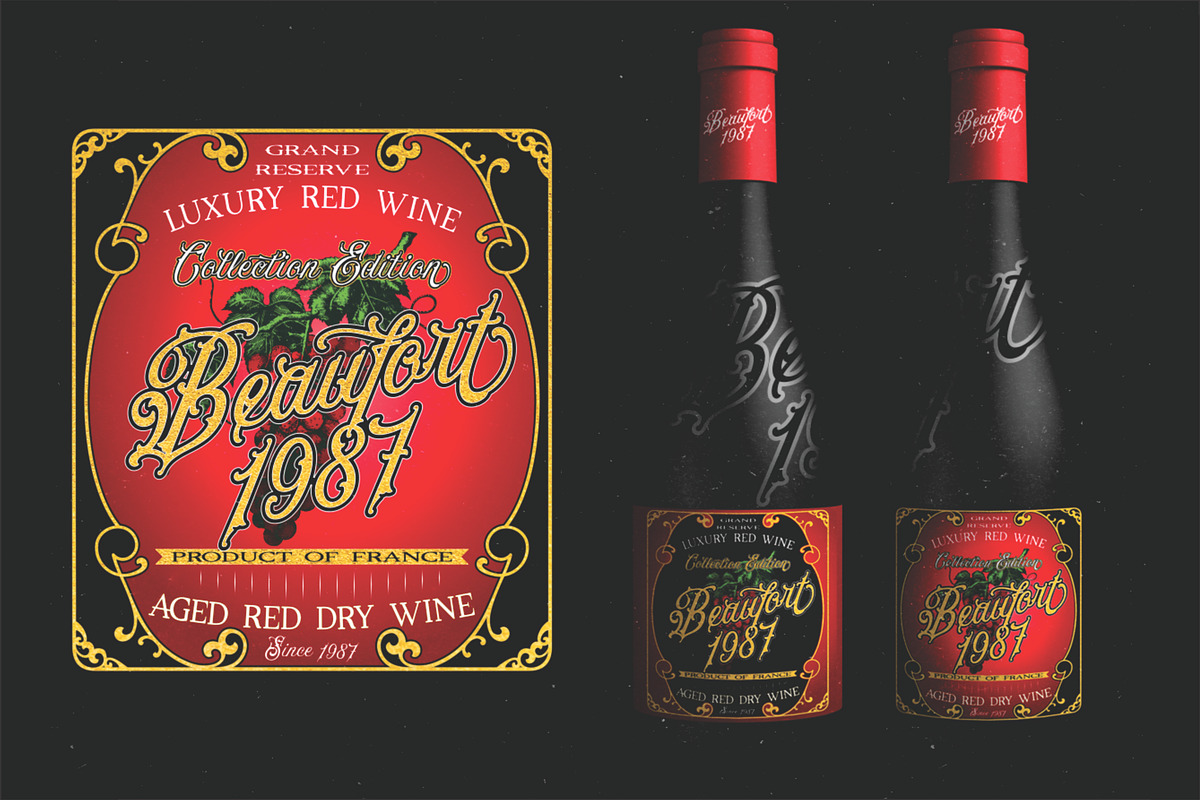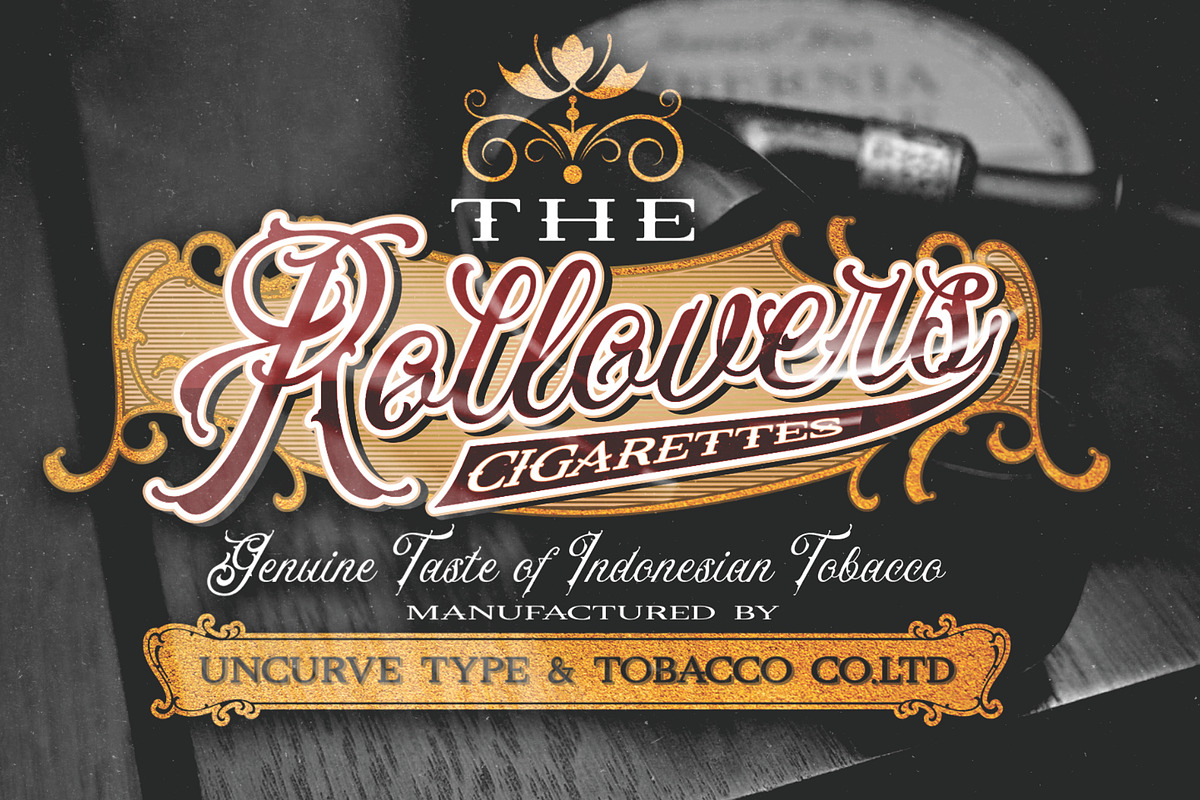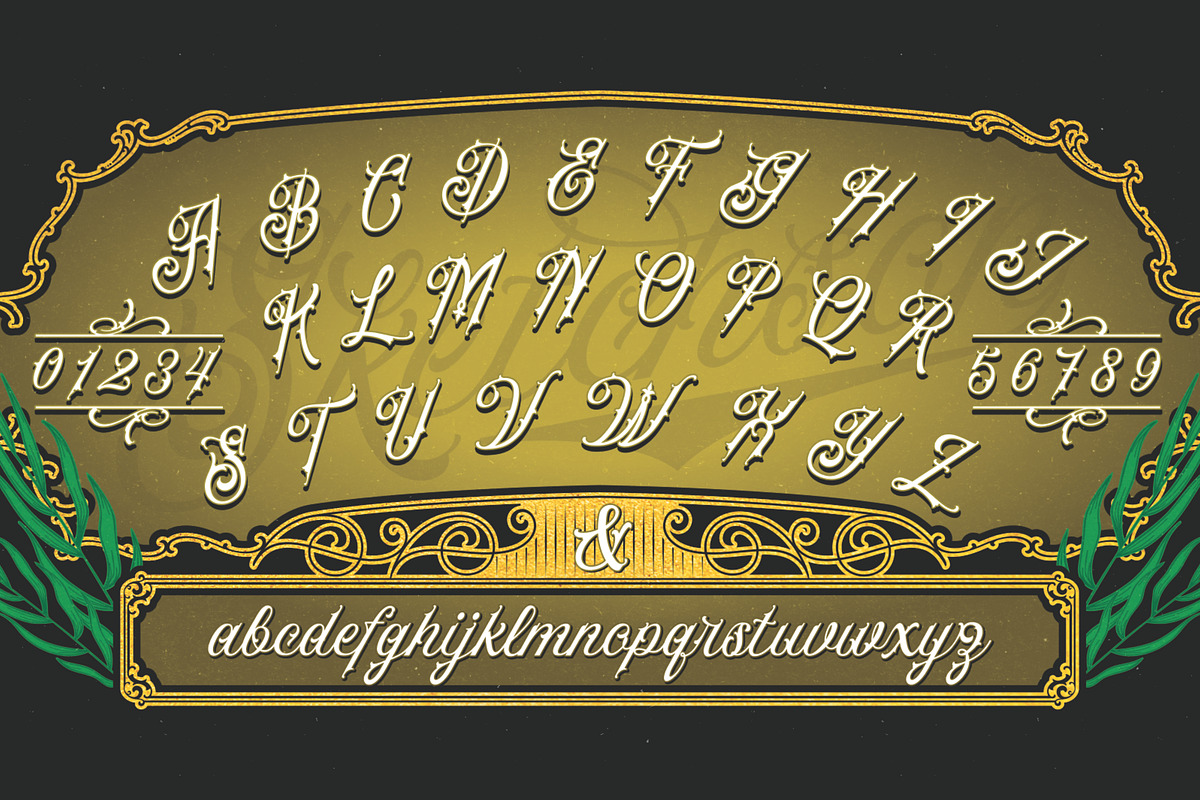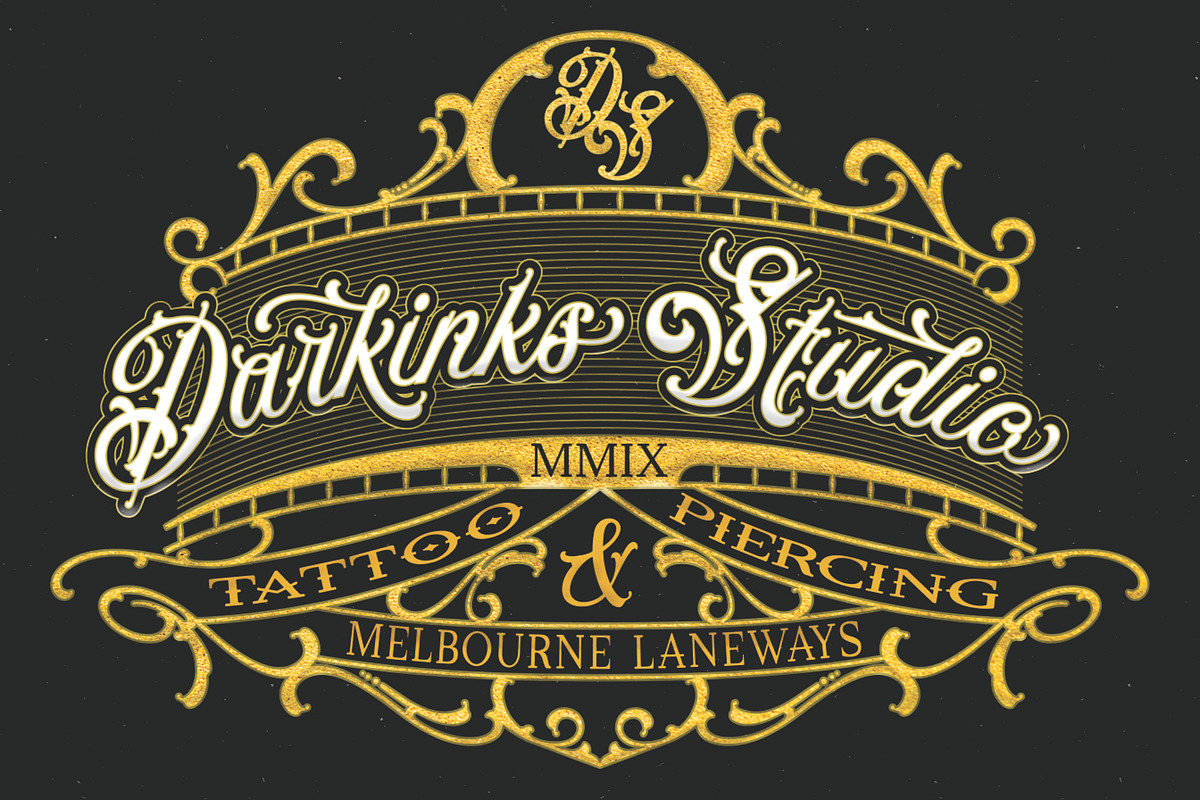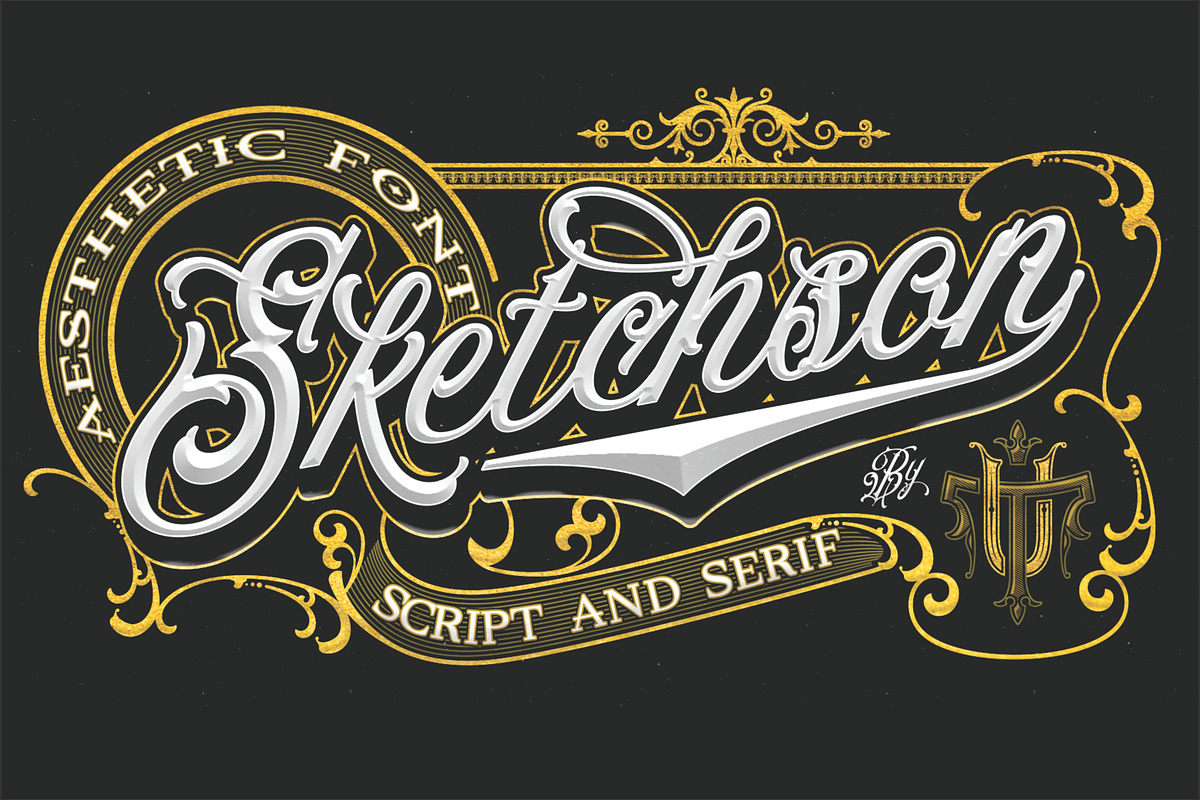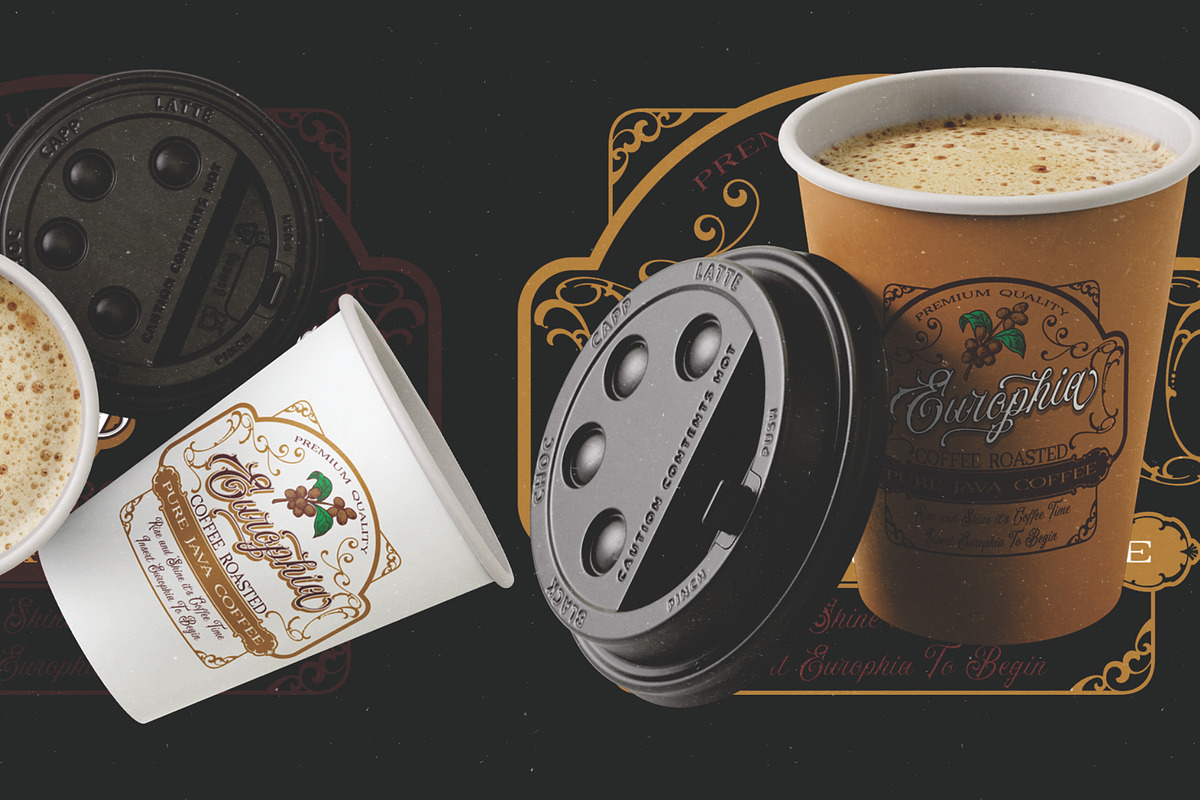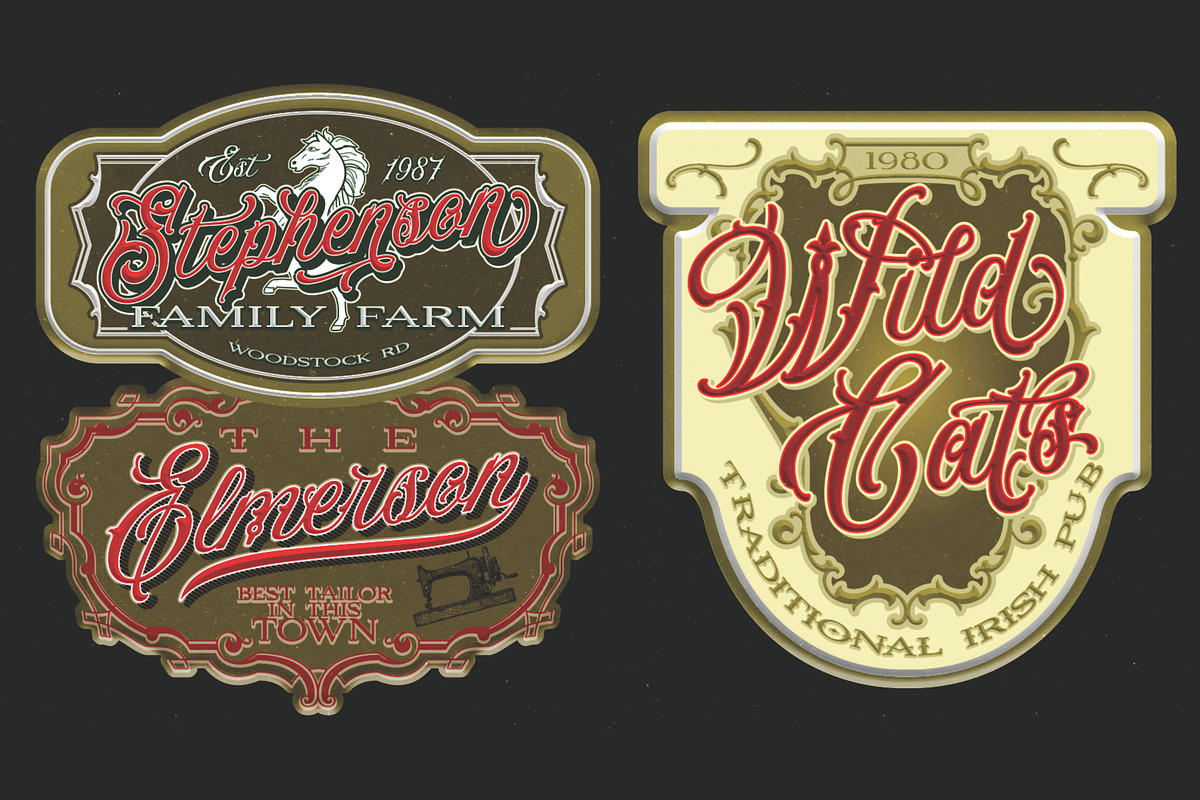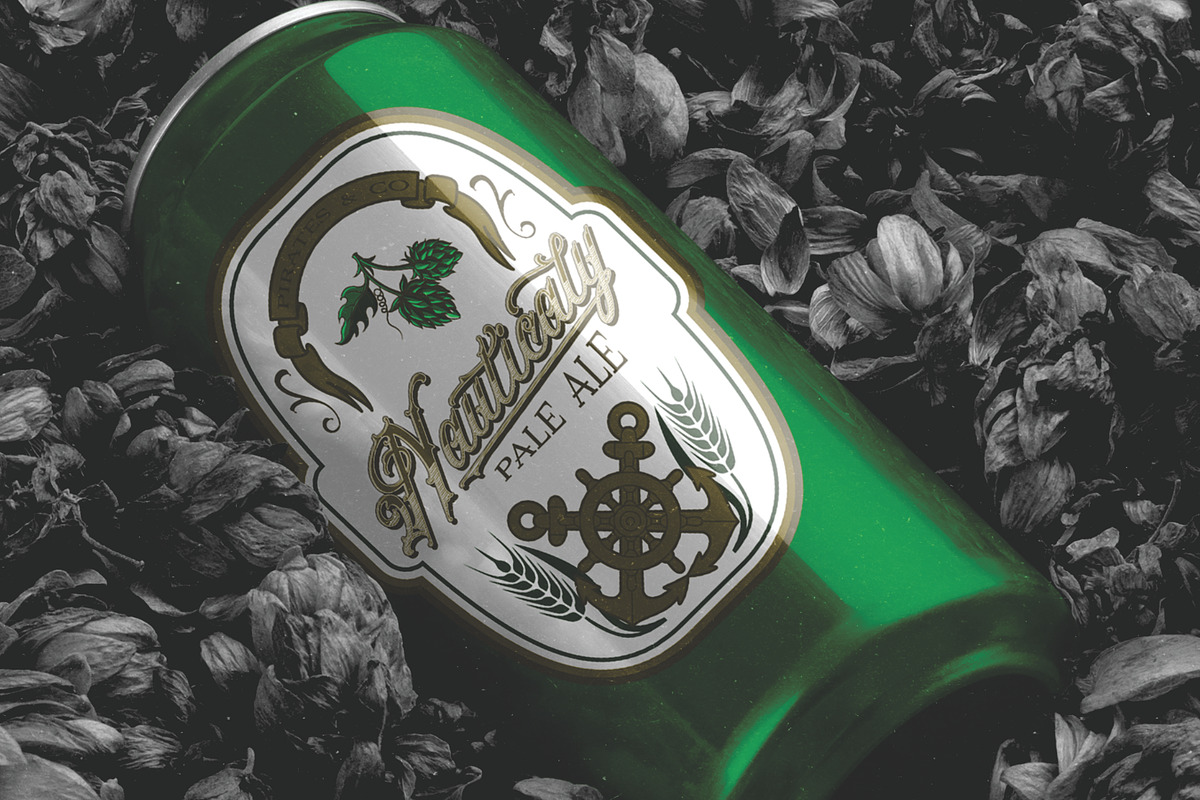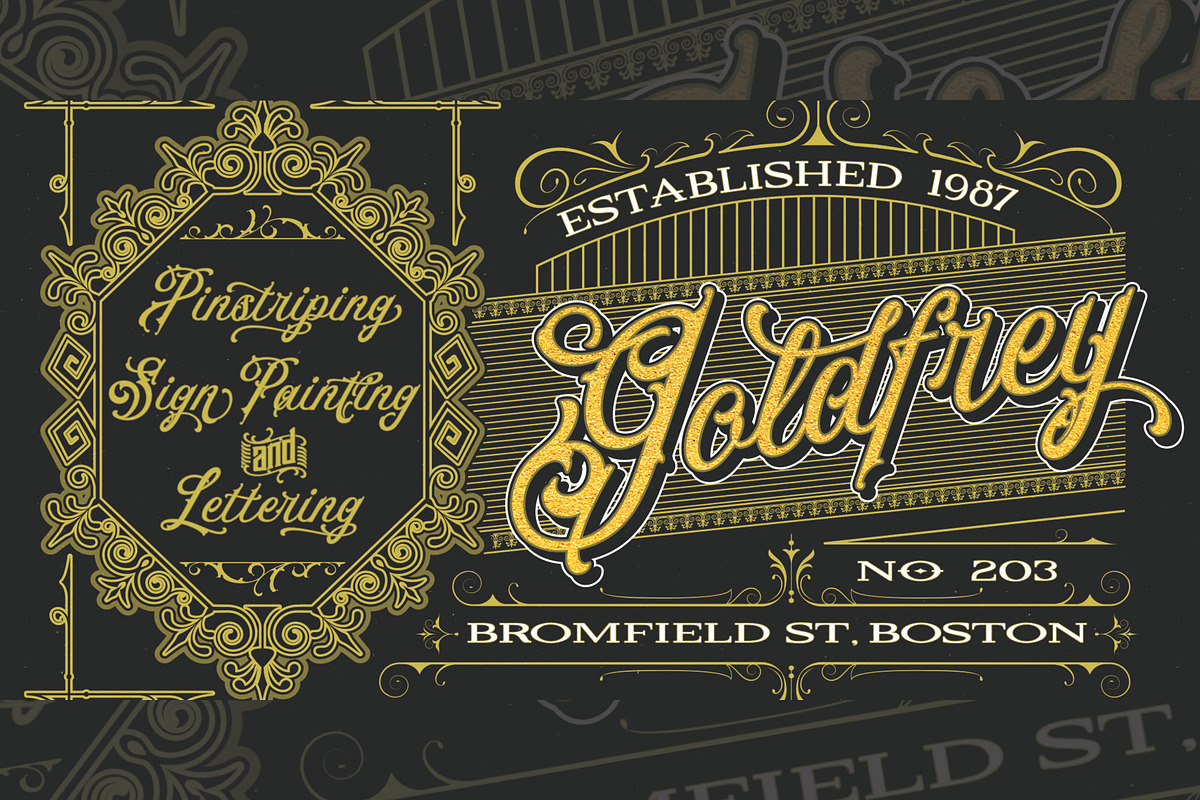
Sketchson Pack
Sketchson is an aesthetic vintage typography font, contains of script, serif and wide serif . Inspired from the past, elegant signage, gold leaf art , sign painting , lettering , tattoo , logo and old label product. Sketchson Script comes with tons of alternates characters and special alternate (i) lowercase is a ending swash thats to make more eye cacthy and the Sketchson Serif is a pairing font to combine in your design . finally BOOM..!! you get a great design for your project. Sketchson It's suitable for authentic logos, headings, sign painting, tattoo, posters, letterhead, branding, magazines, album covers, book covers, movies,apparel design, flyers, greeting cards, product packaging, and more.